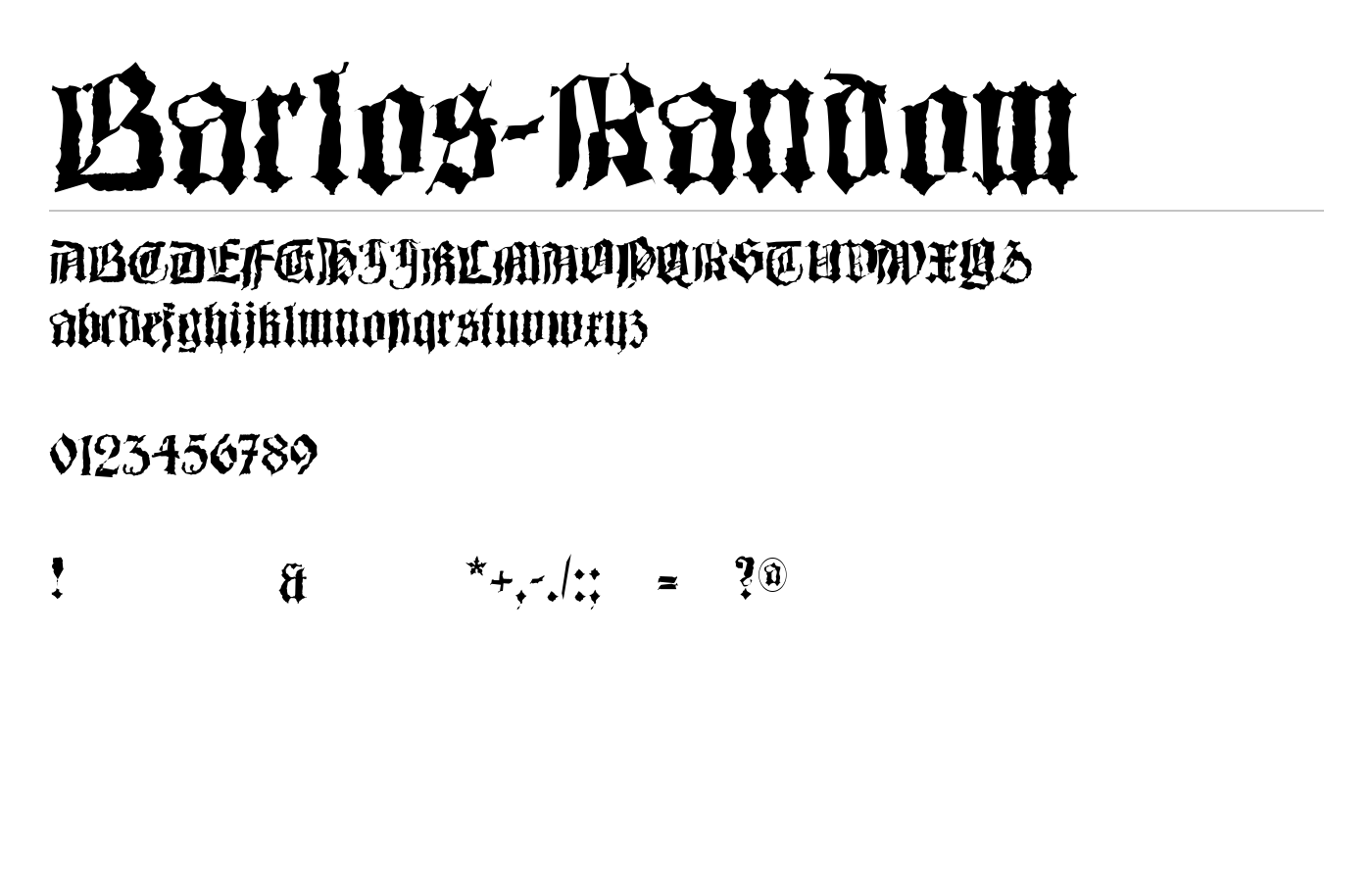
Barlos-Random is a bold, blackletter-style font with sharp, jagged edges that give it a rugged and dramatic appearance. Its dense, condensed letterforms and high contrast strokes make it ideal for creating a strong gothic or vintage mood. This font works best for striking logos, posters, or headlines where a bold, medieval-inspired statement is desired.
Barlos-Random Font
About Barlos-Random Font